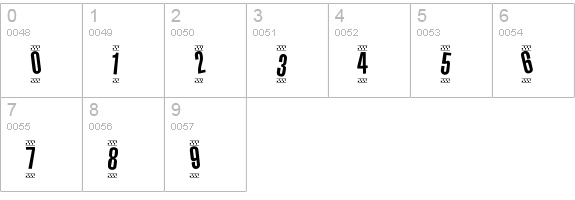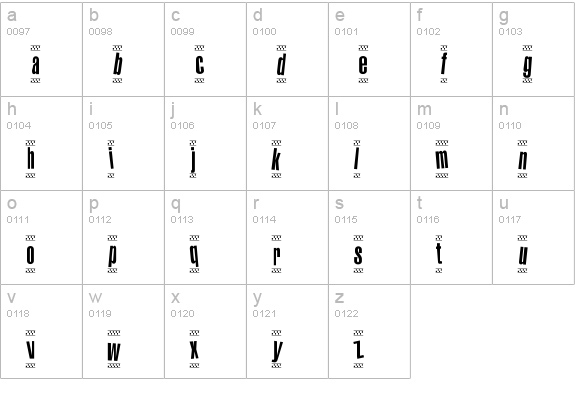
1980 Portable Font Details
The 1980 Portable font is a versatile and retro-inspired typeface that captures the essence of the 1980s aesthetic. With its bold lines and distinct style, this font is perfect for creating eye-catching designs that evoke a sense of nostalgia and creativity. Whether you're working on a poster, logo, or social media graphic, the 1980 Portable font will add a unique touch to your project. Best of all, this font is available for free download at FontsMarket.com. Simply visit the website and start using this stylish font in your designs today. Don't miss out on the opportunity to enhance your creative projects with the 1980 Portable font – download it now and let your imagination run wild!